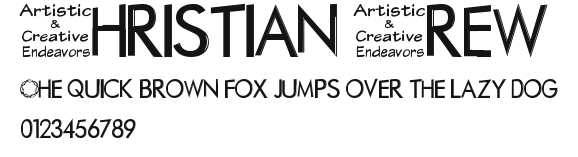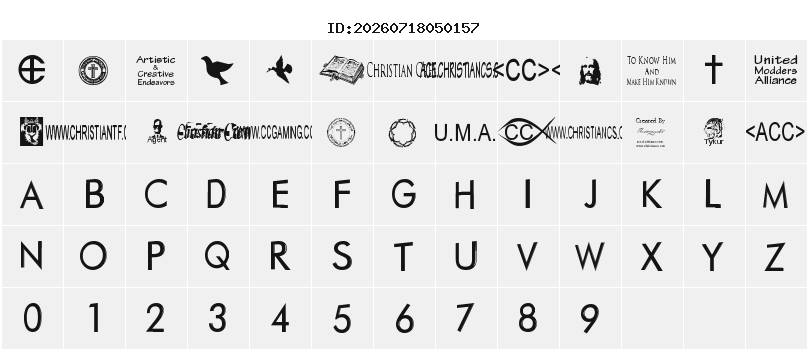
• Font Name: Christian Crew
• Full Font Name: Christian Crew
• Version: Version 1.00 September 21, 2008, initial release
• Copyright: Christian Crew© < Thamyris <2008>. All Rights Reserved
• Designer: Thamyris
About Christian Crew.ttf
Christian Crew.ttf is a modern, elegant sans-serif font designed for ultimate readability and visual harmony. Perfect for branding, headlines, web design, and print materials.